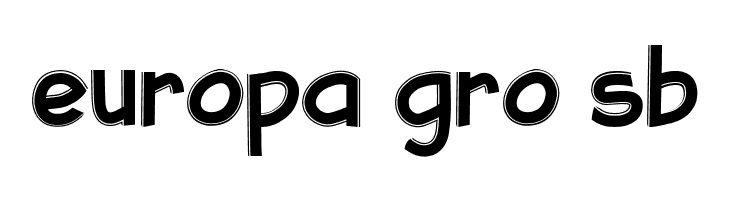
A collection of decorative and plain rectangular frame glyphs.
A playful, hand-drawn font with tall, narrow letters and a whimsical style.
A rugged, hand-drawn font with a distressed, artistic style.
A rugged, hand-drawn font with uneven strokes and a distressed appearance.
A spooky, hand-drawn font with elongated, irregular strokes and a whimsical style.
A bold, graffiti-inspired font with a dynamic, street art style.
A bold, graffiti-inspired font with a dynamic, urban style.
A playful, bunny-themed decorative font with a hand-drawn, cartoonish style.
A playful, whimsical font with irregular, quirky letterforms.
A futuristic and geometric font with clean lines and angular shapes.
A bold, geometric font with a futuristic and modern design.
A bold, italicized font with a futuristic and angular design.
A futuristic italic font with sharp angles and sleek lines.
A graceful script font with flowing, connected strokes and a calligraphic style.
A bold, artistic font with a modern vintage aesthetic and sharp serifs.
A bold, angular, hand-drawn font with a dynamic and energetic style.
A bold, angular font with a futuristic and geometric style.
A bold, rounded font with a playful and modern style.
A modern, multi-line font with a geometric and dimensional style.
A bold, geometric font with a modern and cohesive design.
A bold, geometric font with a futuristic and modern style.
A bold, geometric font with a modern and clean aesthetic.
A bold, dynamic font with sharp, angular strokes and a modern calligraphic style.
A sleek, modern font with a futuristic and dynamic design.
A sleek, modern font with a futuristic and dynamic style.
A bold, rounded font with a playful and modern style.
A bold, futuristic font with dynamic, slanted characters.
A playful, modern font with rounded edges and a dynamic, slightly condensed style.
A bold, geometric font with a modern and minimalistic design.
A bold, modern sans-serif font with geometric shapes and consistent stroke width.
A modern, rounded, geometric font with a clean and uniform design.